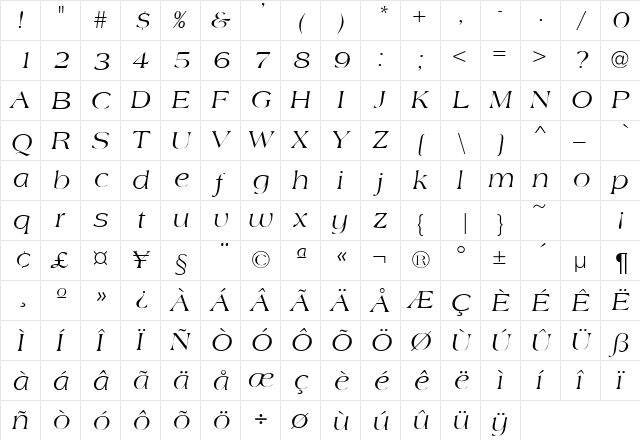
AmiDB Italic
Design Context for AmiDB Typeface
AmiDB takes a measured approach to typography — its balanced proportions and neutral character make it a reliable workhorse for both digital and print work. The slanted form adds forward momentum and visual energy.